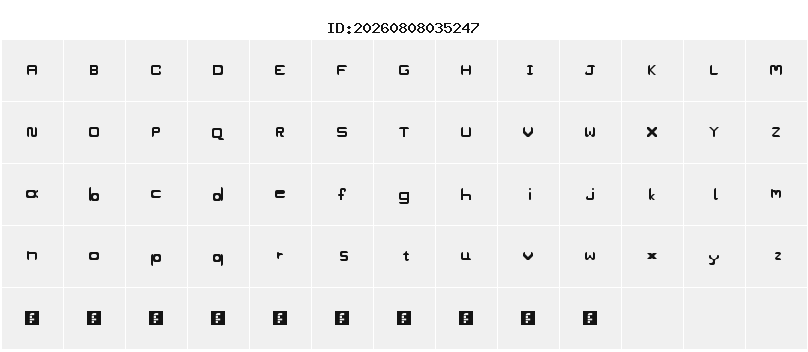
• Font Name: ProJecT's Goodies
• Font ID: FontStruct ProJecT's Goodies
• Full Font Name: ProJecT's Goodies Regular
• Designer: Mapkis
About ProJecT's Goodies.ttf
ProJecT's Goodies.ttf is a modern, elegant sans-serif font designed for ultimate readability and visual harmony. Perfect for branding, headlines, web design, and print materials.